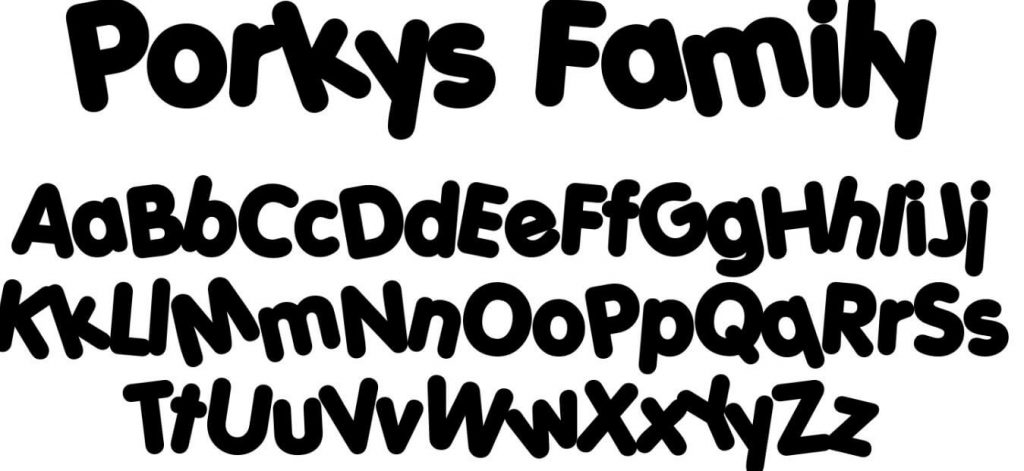
Porky’s Font Family
Porky's Font Family is a highly esteemed typeface known worldwide for its richness and unique characteristics.
This retro font has a mess of usual-looking ligatures in its TrueType aspects. In this way, that can help you in making a suitable design for certain.